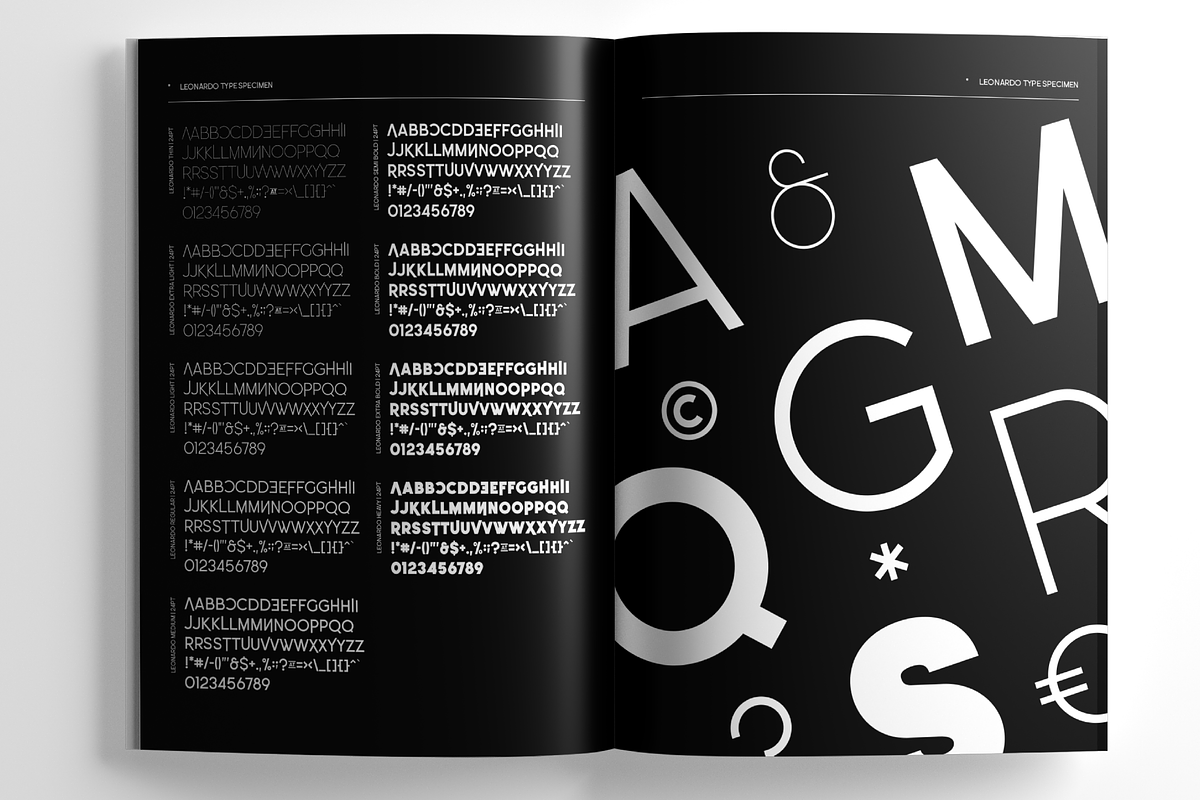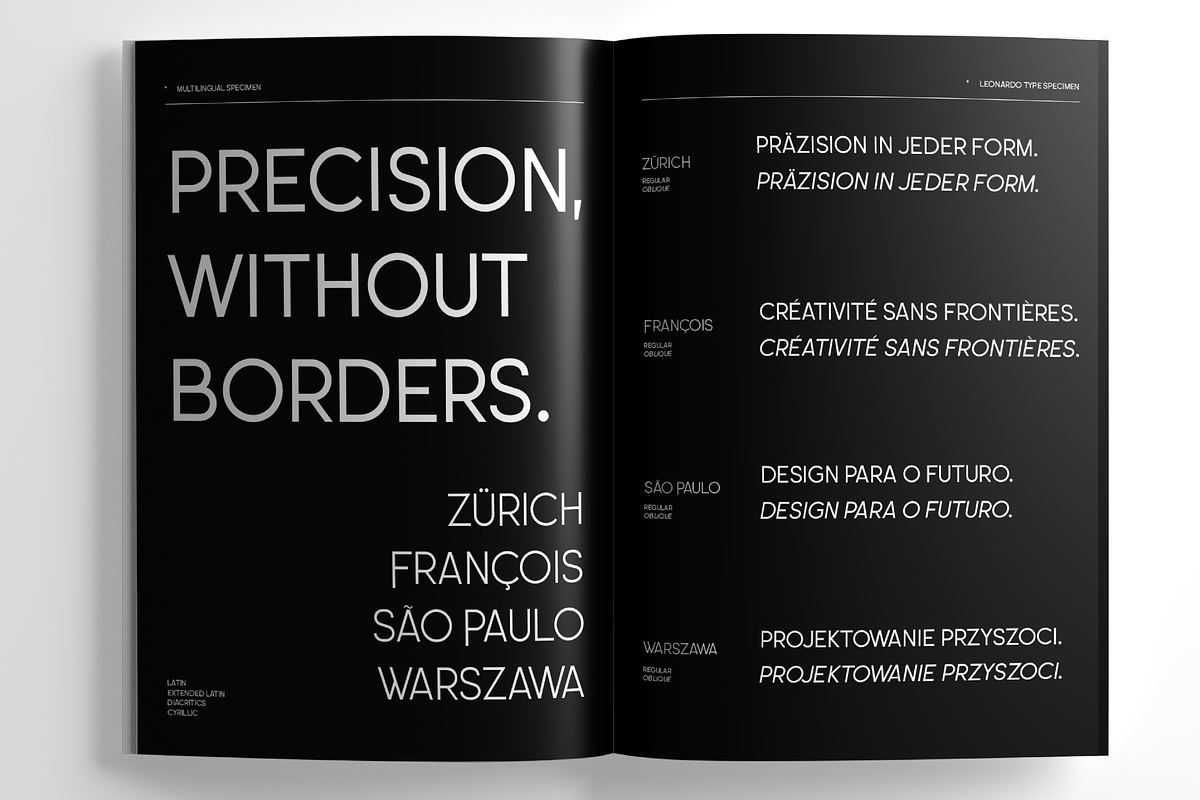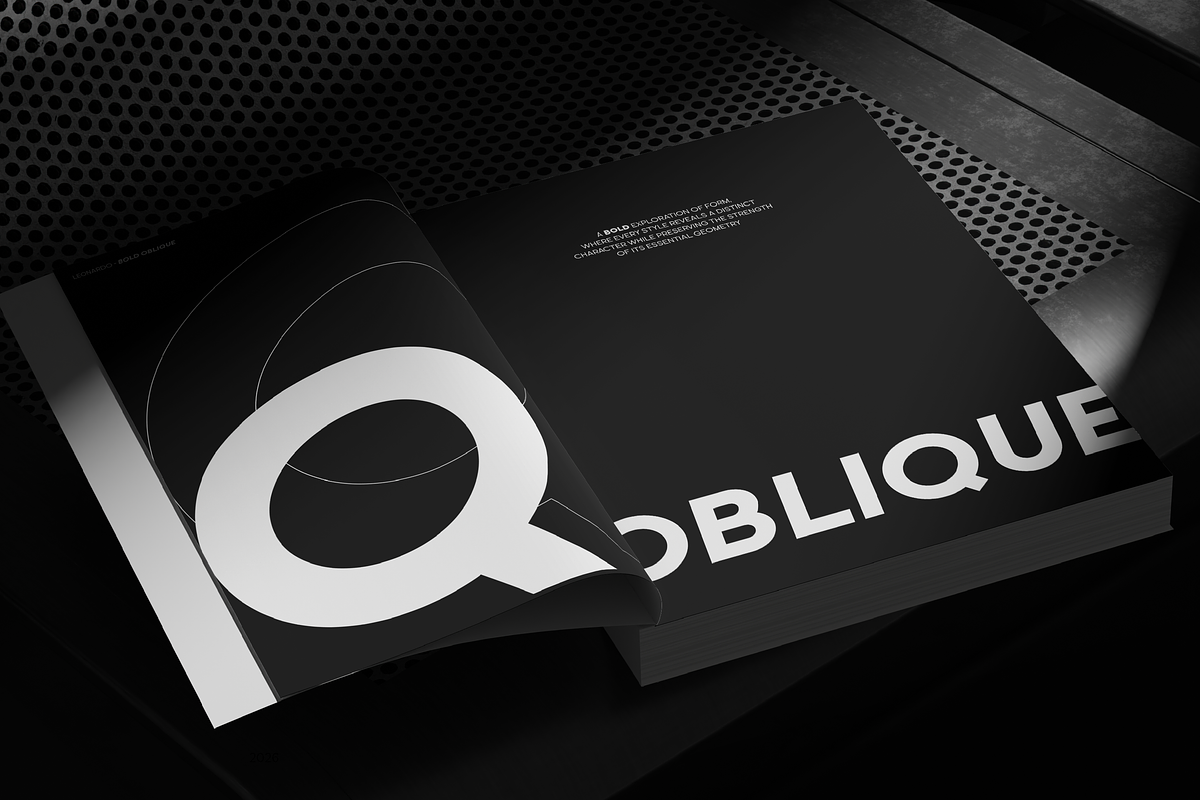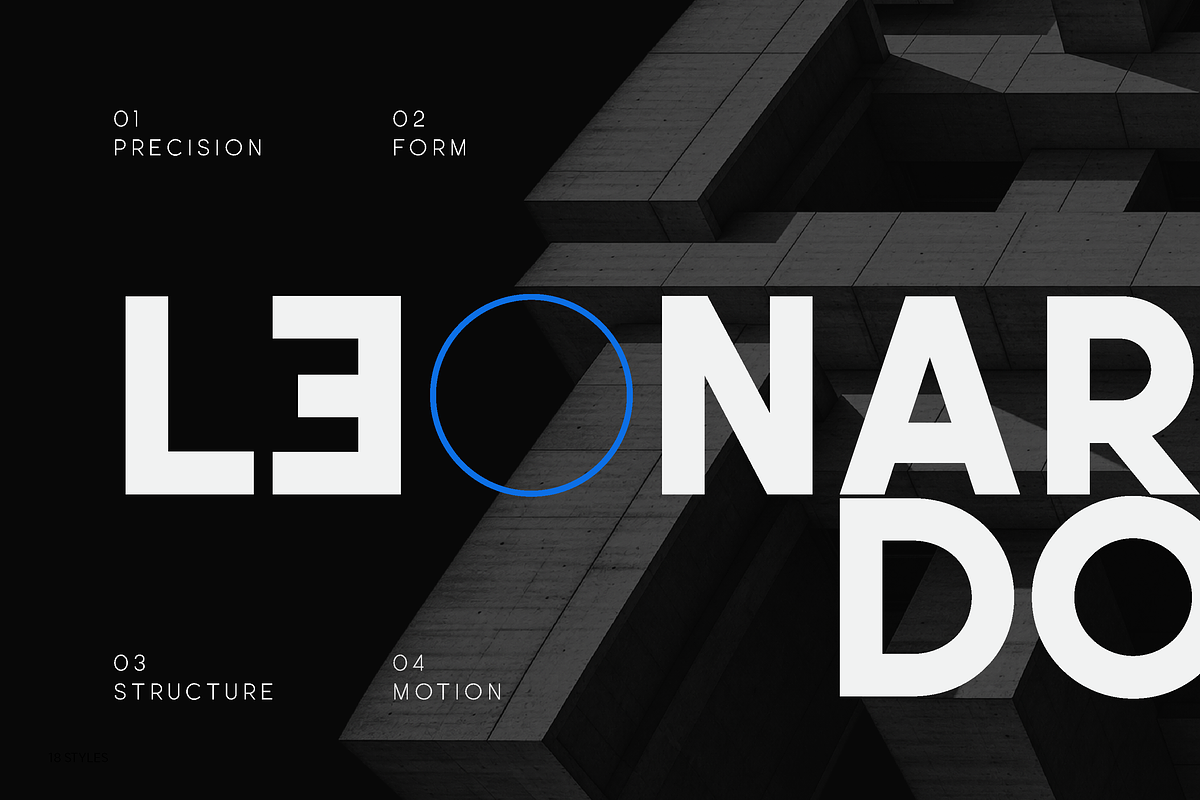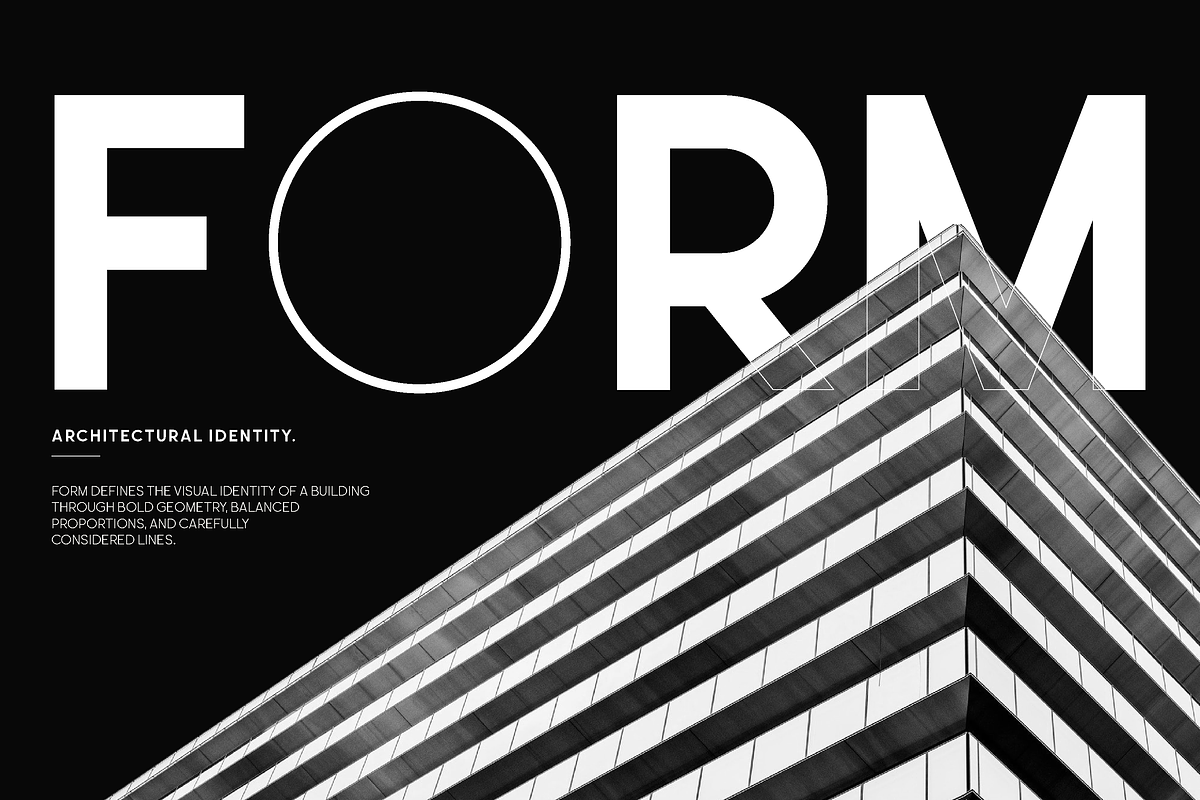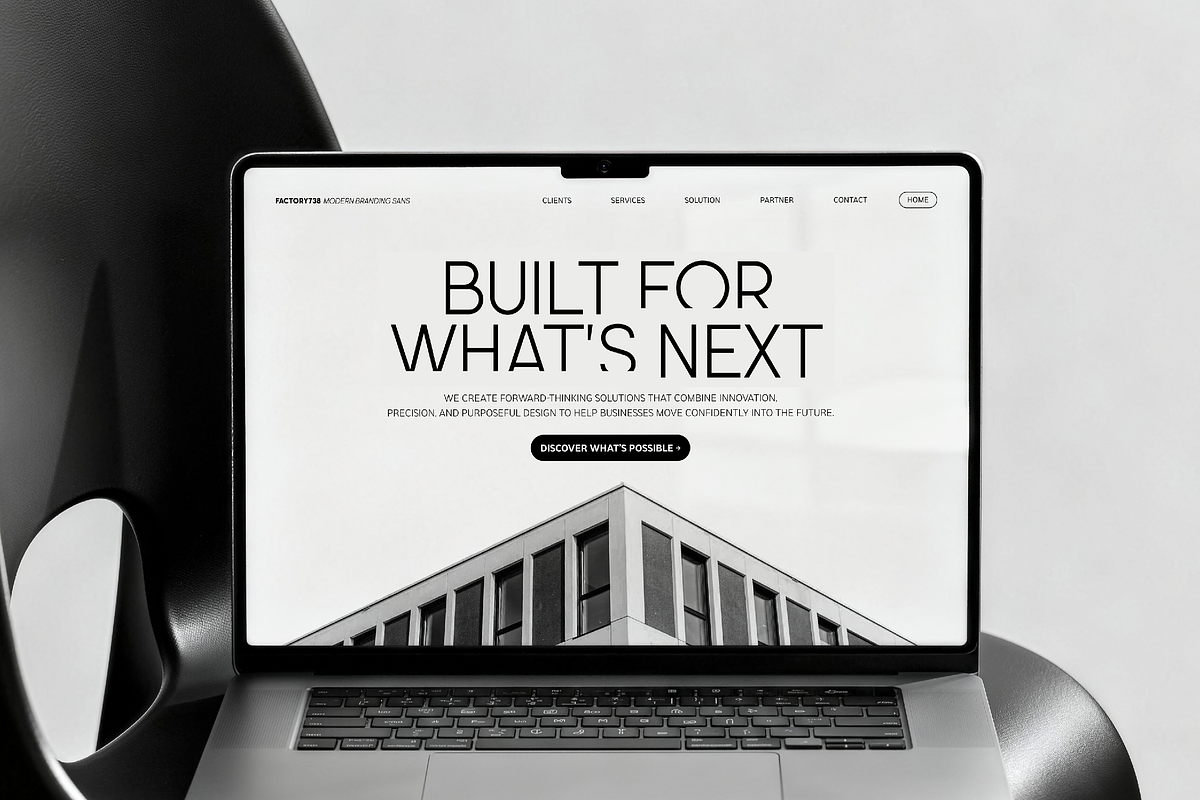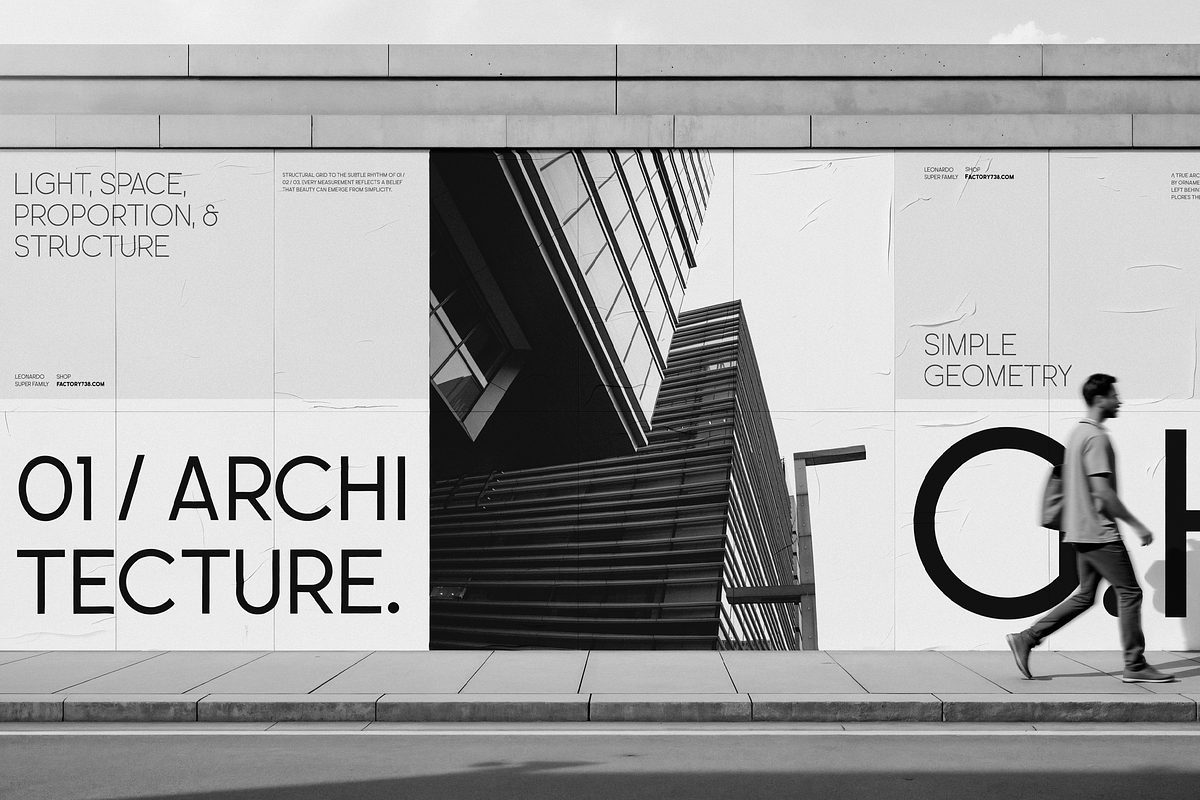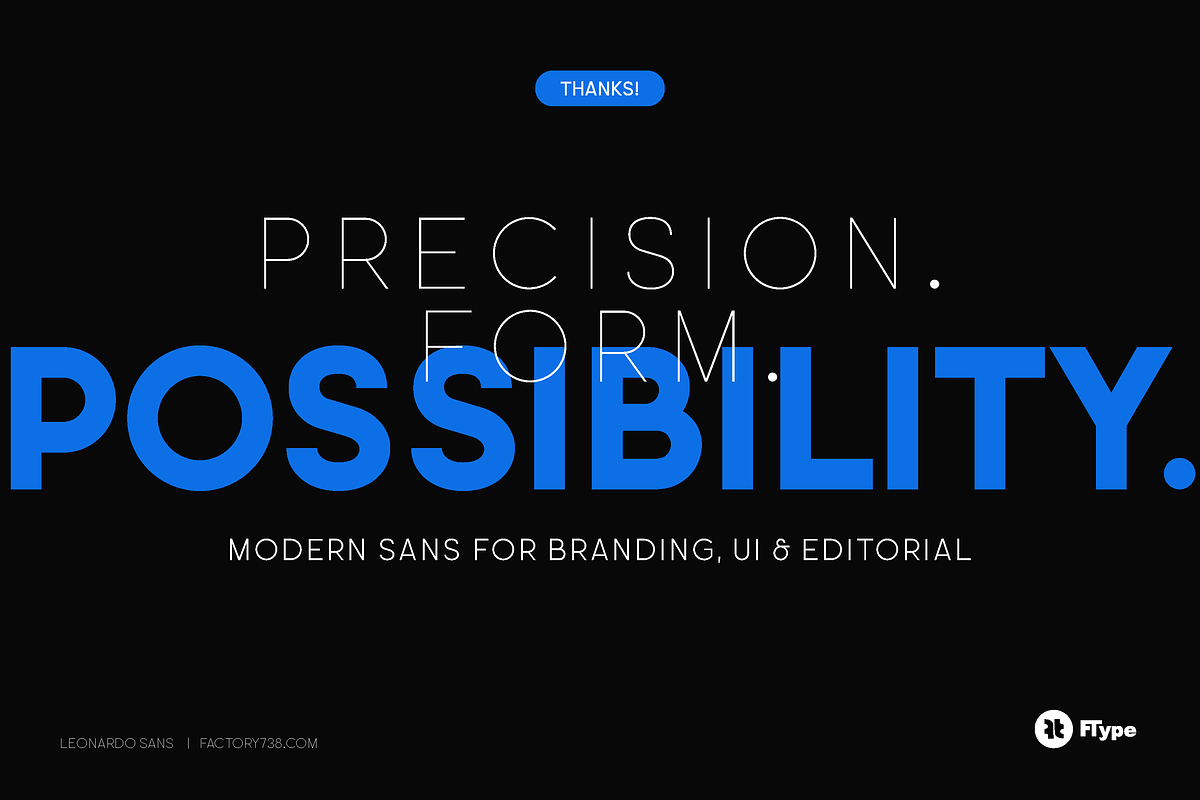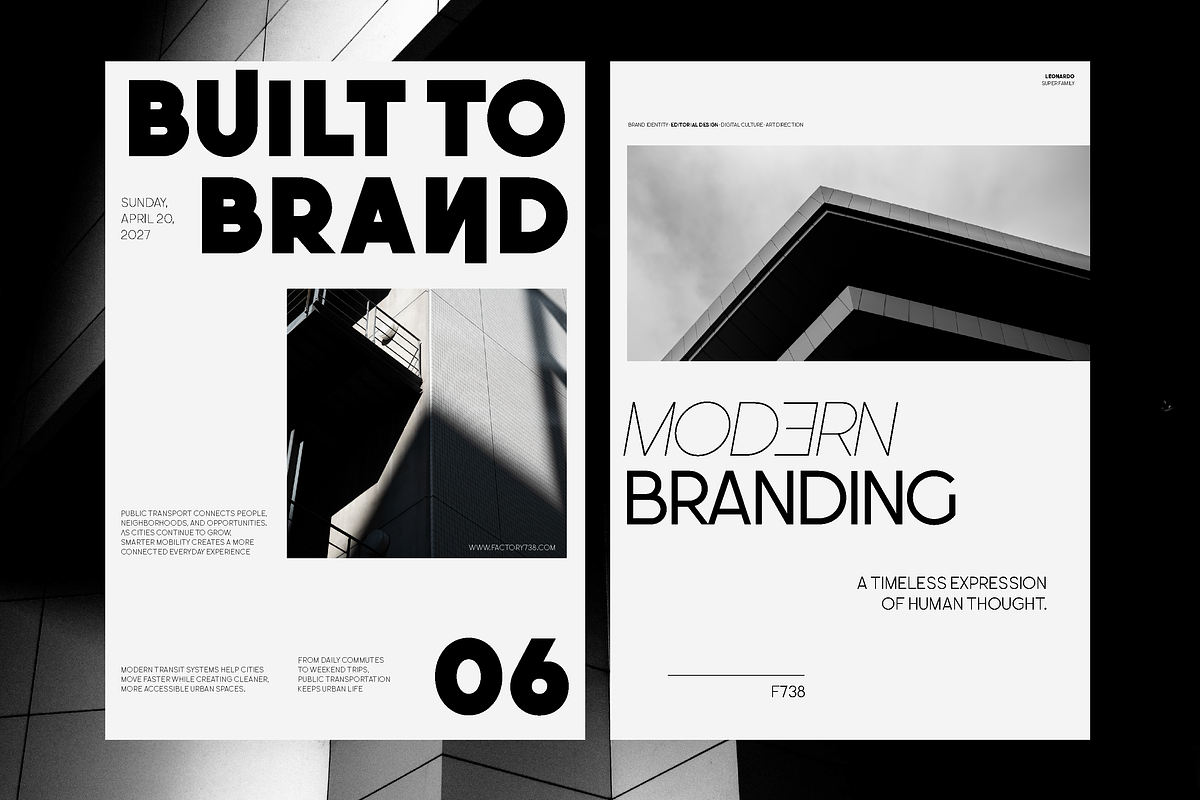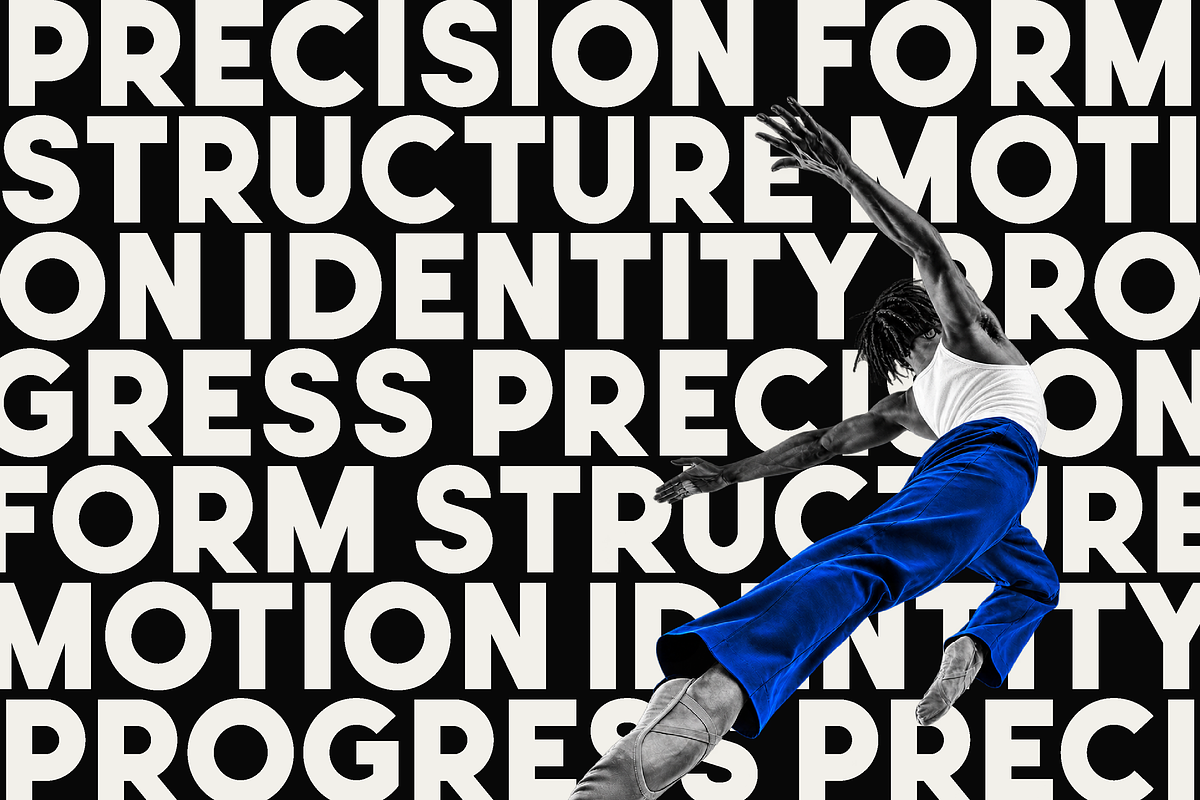
Leonardo Sans – 18 Styles
Leonardo Sans — Modern Geometric Sans with 18 Styles
Elevate your branding with Leonardo Sans (formerly known as Leo Sans), a modern geometric sans-serif family designed for architectural precision and timeless clarity. Inspired by clean minimalist forms and mathematical balance, Leonardo Sans offers a sophisticated yet approachable tone that fits perfectly into any contemporary design project.
Leonardo Sans is more than just a typeface; it’s a versatile foundation for your creative vision. Whether you are crafting high-end logotypes, minimalist posters, or cutting-edge digital interfaces, this family provides the refined structure and technical depth your work deserves.
With 18 total styles, Leonardo Sans offers a seamless spectrum of weights—from an ethereal, airy Thin to a bold and commanding Black. Every letter is meticulously engineered for flawless legibility, making it a reliable tool for everything from professional corporate systems to elegant editorial headlines.
18 Total Styles: 9 Weights (Thin to Black) with matching, expressive Obliques.
Global Reach: Includes Full Cyrillic and Extended Latin support, perfect for international branding.
Pro Features: Deep OpenType features including ligatures, fractions, tabular figures, and arrows.
Logo & Identity Design: Create a lasting, professional impression with unique character.
High-Impact Posters: Bold weights that grab attention with geometric purity.
Tech & UI/UX: Clean, legible, and future-ready for apps and websites.
Editorial Layouts: Versatile weights for sophisticated magazines and books.